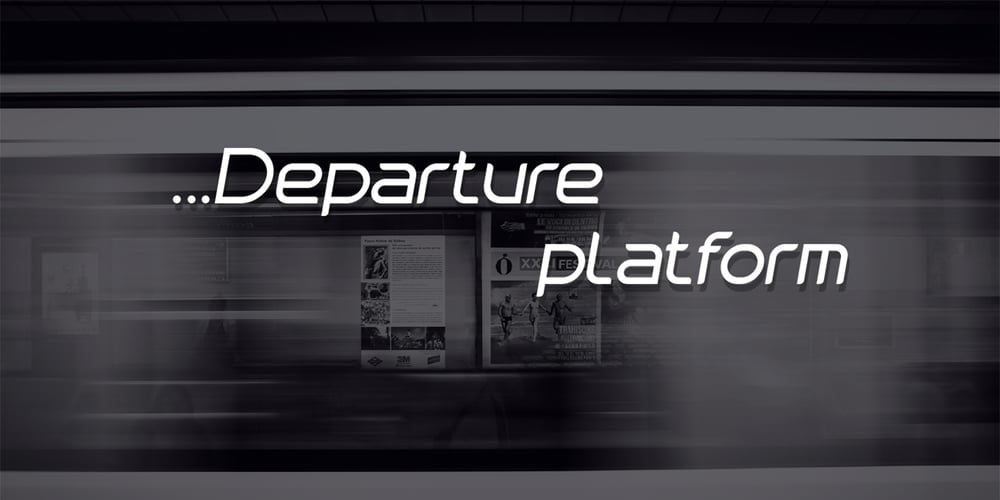
Beginner
Beginner font
Beginner Font Family was designed by Volodymyr Berla and published by VladB. Beginner contains 8 styles and family package options. Beginner is a modern sans serif geometric font, includes upper and lower case characters, Latin and Cyrillic. Graphically, the characters have uniform thickness. Rounded corners give visual softness to fonts Intended use – infographics, design in technical areas, architecture, industry, sport.